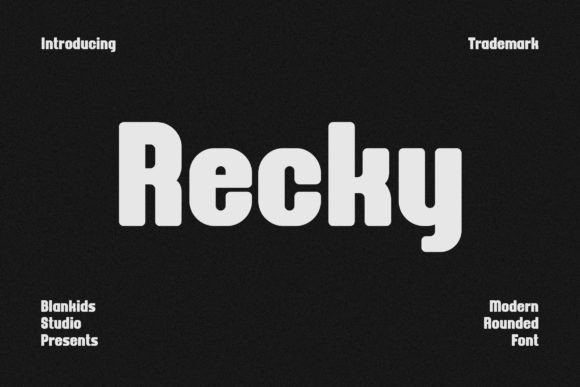
Recky Font
Recky Sans Serif Font a Modern Rounded Font, Inspiring from modern typography. This font is perfect for a design that makes it more attractive and playful. made with a very good level of aesthetics making this font suitable for book cover, poster, packging, merchandise, logotype and much more.